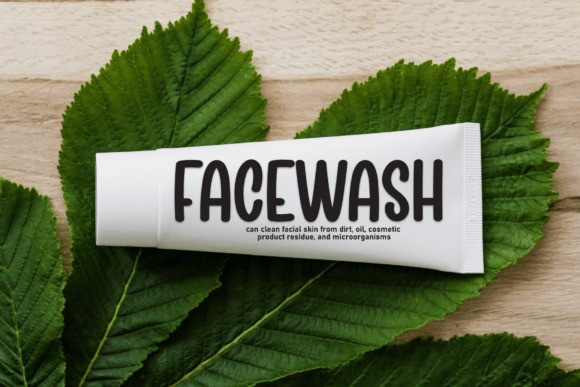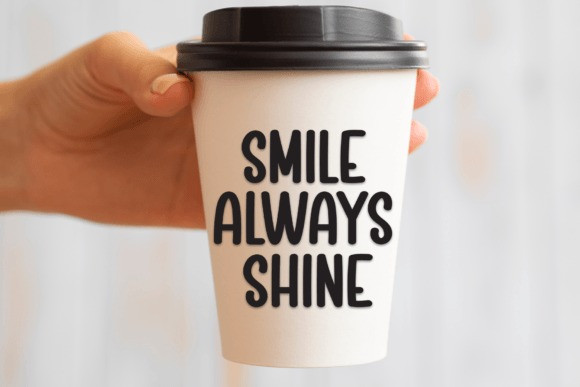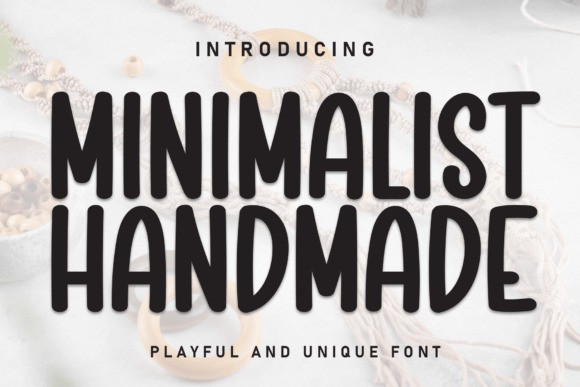
Minimalist Handmade Font
Minimalist Handmade Font is a sweet and friendly handwritten font. Its natural and unique style makes it incredibly fitting to a large pool of designs. The only limit is your imagination!